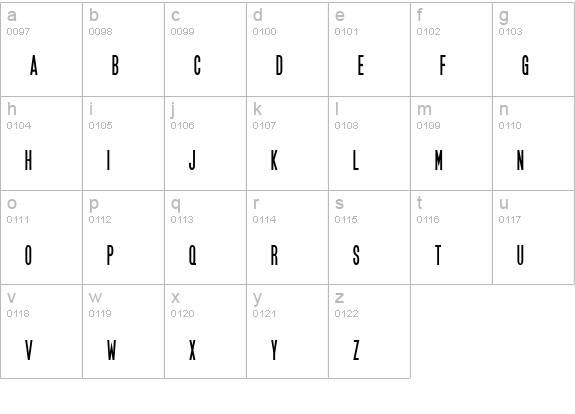
SF Movie Poster Condensed Bold Font Details
SF Movie Poster Condensed Bold is a strong, high-contrast, condensed-width variant in the SF typeface family \xE2\x80\x94 well suited to headlines, attention-grabbing titles, and strong calls-to-action.
Introducing SF Movie Poster Condensed Bold, a font that will transport you to the thrilling world of science fiction films. With its sleek and futuristic design, this font captures the essence of the genre, making it perfect for movie posters, book covers, and any other creative project that needs a touch of excitement and wonder. SF Movie Poster Condensed Bold is the epitome of boldness and strength, with its clean lines and distinct letterforms. Its condensed style allows for maximum impact, ensuring that your message will be seen and heard loud and clear. Whether you're creating a poster for a blockbuster film or designing a logo for a tech startup, this font will make your work stand out from the crowd. But what sets SF Movie Poster Condensed Bold apart from other fonts is that it is freely available to download at FontsMarket.com. Yes, that's right - you can bring the magic of this font into your projects without spending a dime. We believe that creativity should be accessible to all, and that's why we're offering this font for free. So go ahead, unleash your imagination and create something truly extraordinary with SF Movie Poster Condensed Bold.